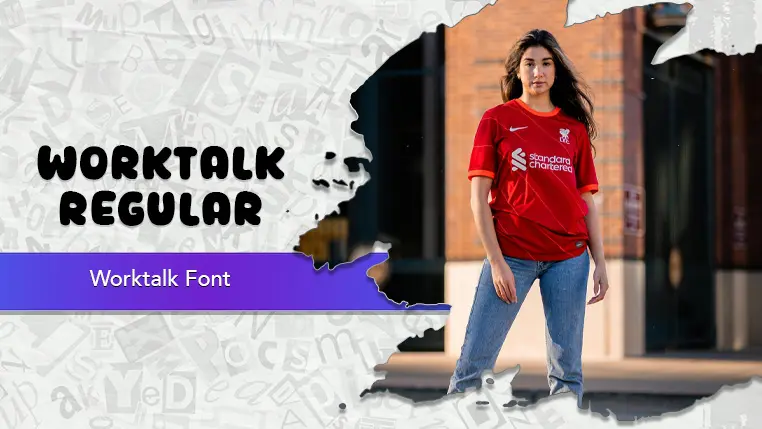
The Worktalk font family may be ideal for you if you enjoy working on an artistic design project. The lively, expressive look of this typeface, which was created by Khurasan, makes it ideal for Logos and branding for streetwear, indie music labels, or urban-inspired businesses. Posters and flyers for concerts, music festivals (especially rock, hip-hop, or alternative genres), or extreme sports events. Graphics for social media content targeting a younger, trend-conscious audience. Album covers or single art for energetic music genres. T-shirt designs, merchandise, or custom apparel. Artistic posters, banners, or wall art. Magazine headlines, book covers, or chapter titles where a strong, eye-catching, and expressive font is needed. and other light-hearted visual projects.
Regular are the one primary font styles of the Worktalk font family. You may build dynamic, visually appealing text layouts with the distinct flair that each style offers. With crisp, readable lines and a relaxed tone.